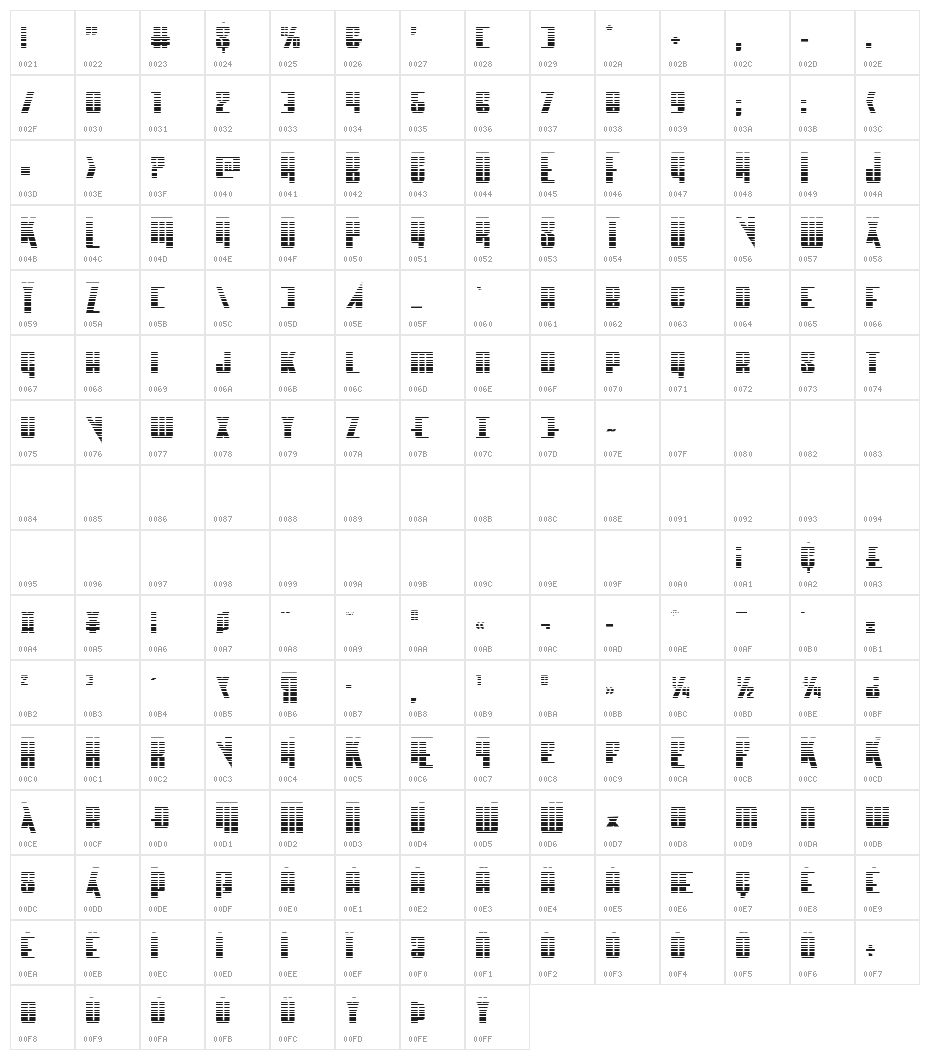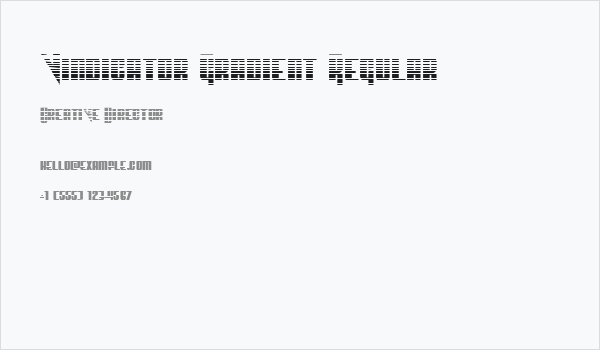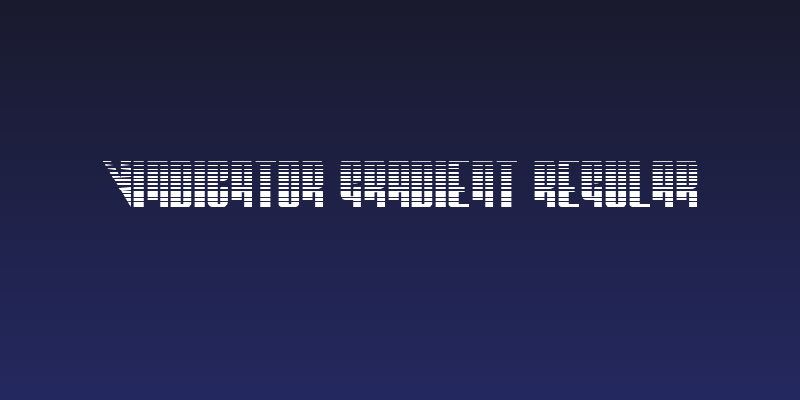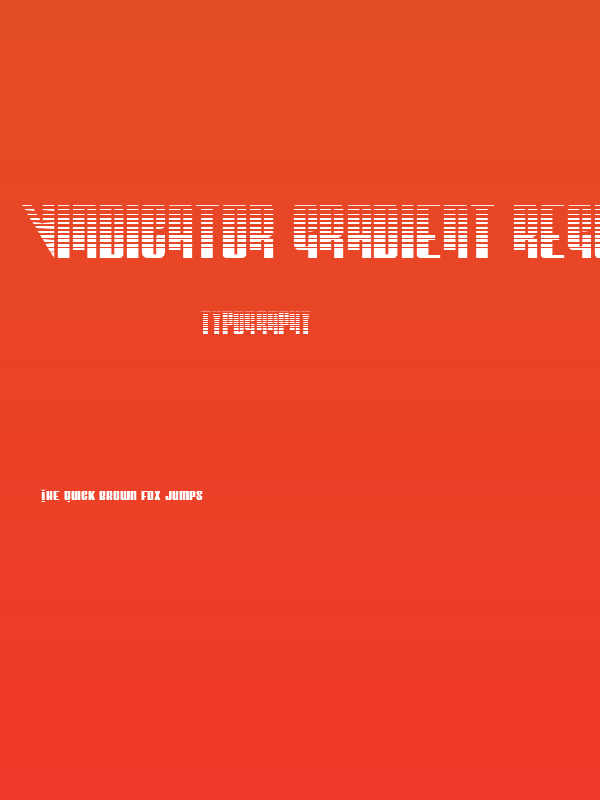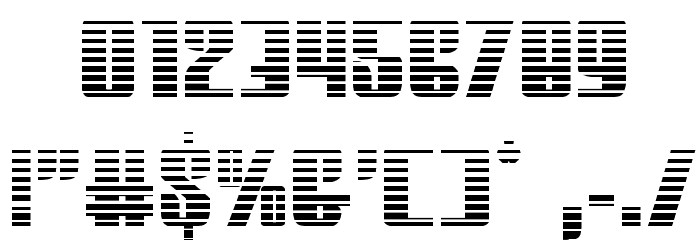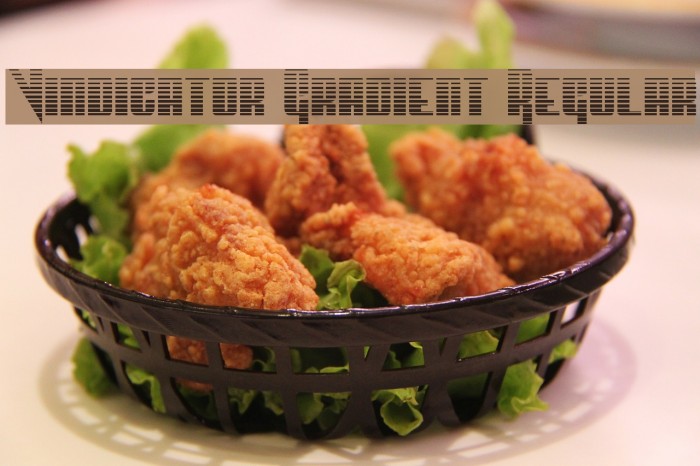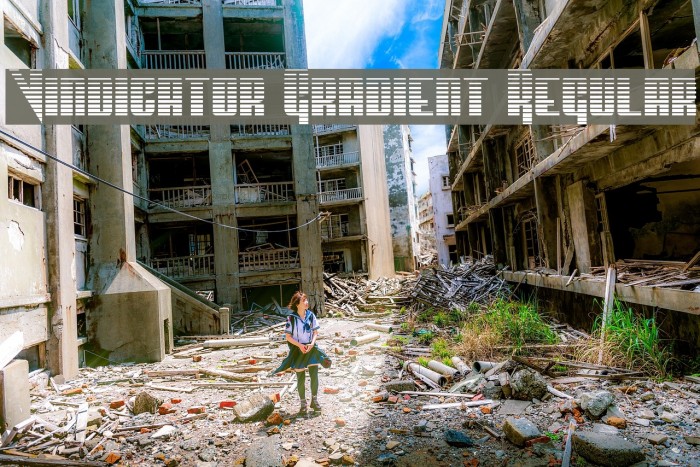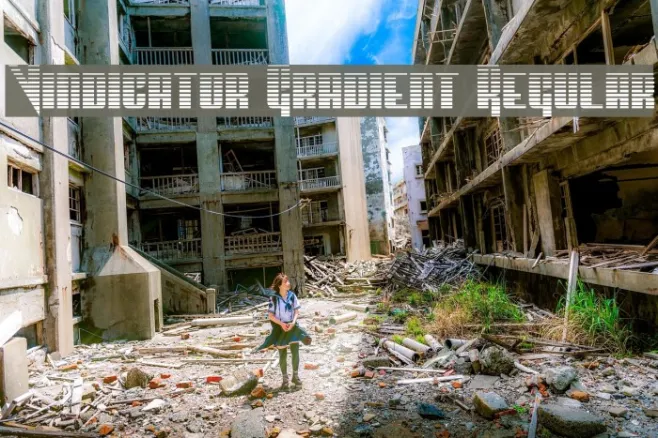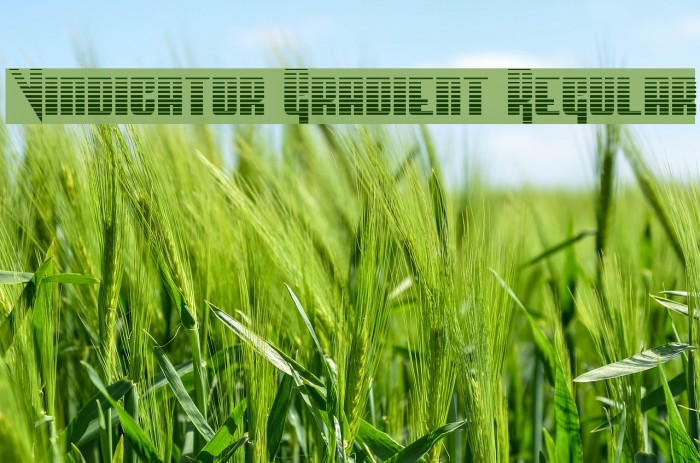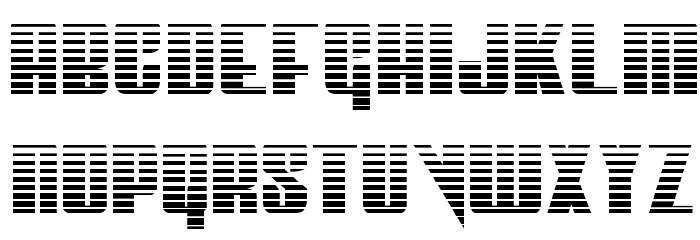
Vindicator Gradient Regular Font
Vindicator Gradient Regular Description
This font features a bold, geometric design with a distinct gradient effect created by horizontal lines that form each character. The uppercase and lowercase letters maintain a consistent width, giving the font a uniform appearance. The numbers and special characters follow the same stylistic approach, ensuring visual harmony across all glyphs. The font's unique style makes it stand out, with its modern and futuristic aesthetic. The horizontal lines create a sense of movement and energy, making it suitable for dynamic and impactful designs.
| Proposed Projects | Ideal for futuristic branding, tech-related projects, posters, and digital media where a modern and dynamic look is desired. |